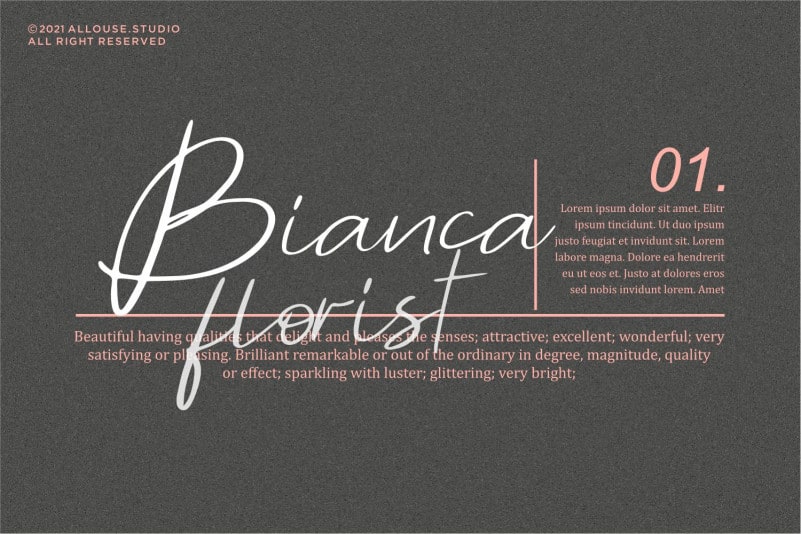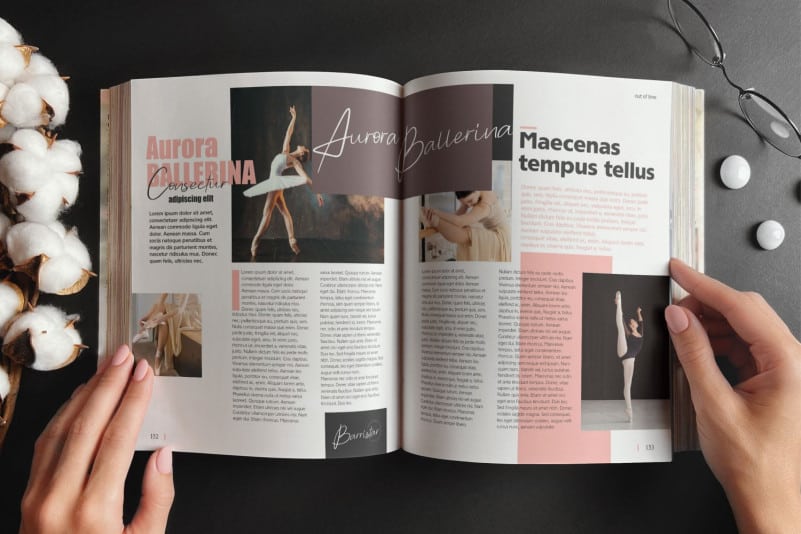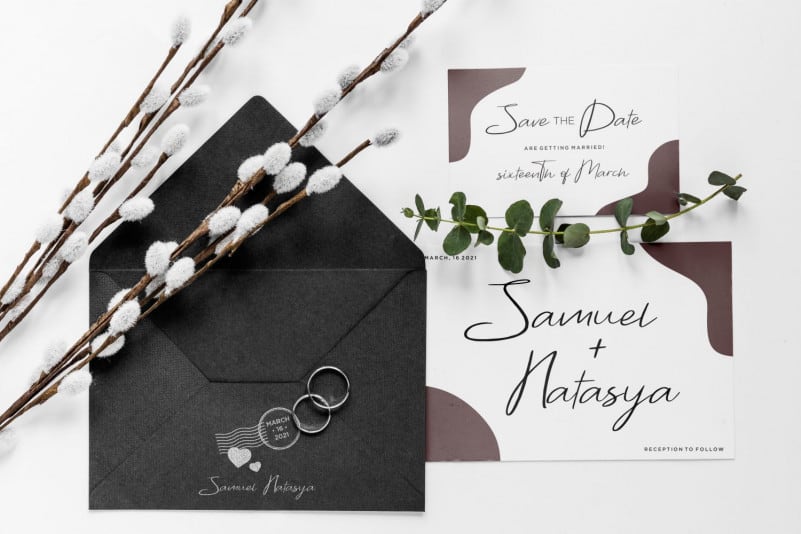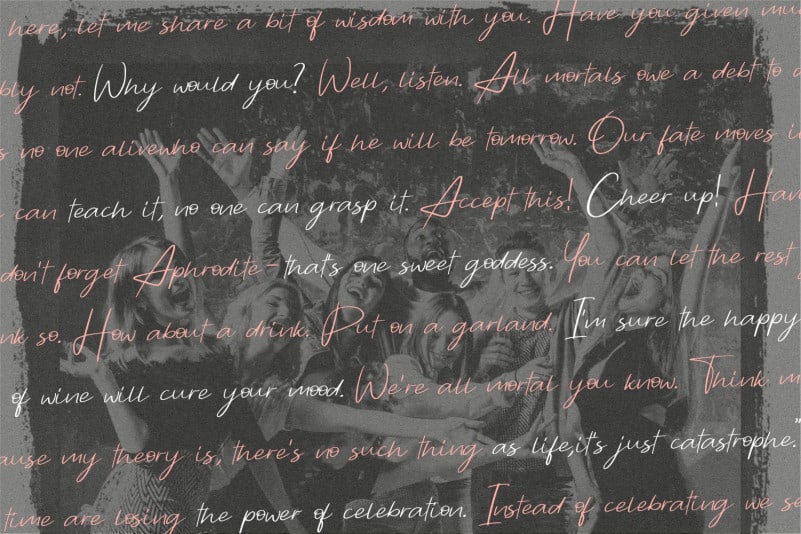
Barrirstar Script Font is a stylish and delicate script font. It has a clean, thin and smooth vibe and it will be a hit for any design that you want to add it to.